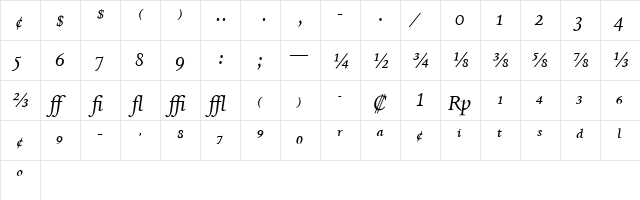
Dante Italic
Design Context for Dante Typeface
Dante takes a measured approach to typography — its balanced proportions and neutral character make it a reliable workhorse for both digital and print work. The dynamic lean of this cut emphasises speed and emphasis in any layout.
Pro Tip: Try Dante for annotation and caption copy alongside an upright companion — the contrast in angle creates a dynamic but ordered typographic system.